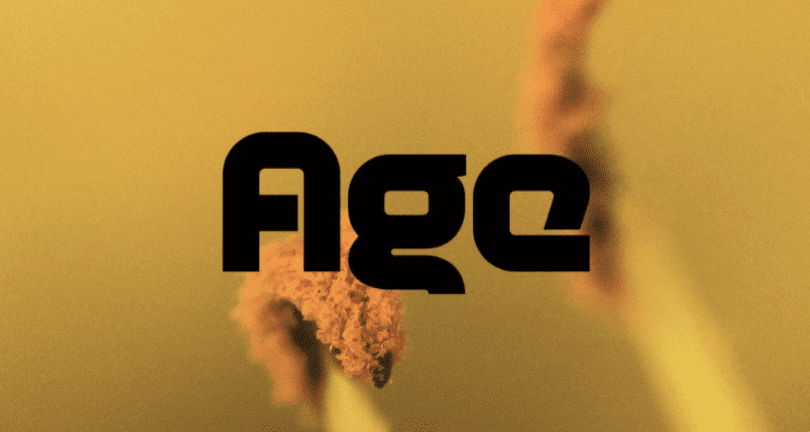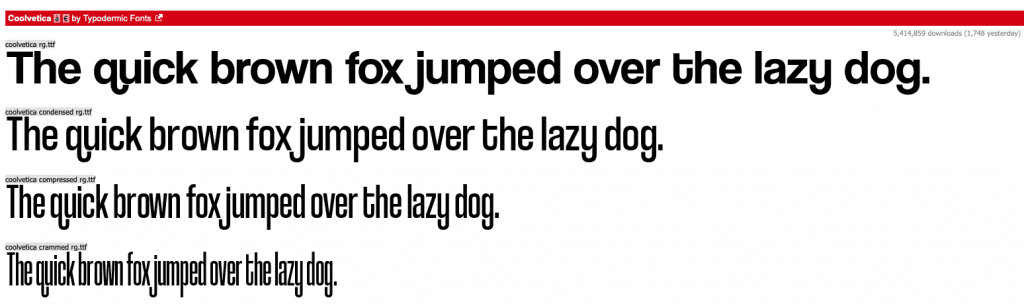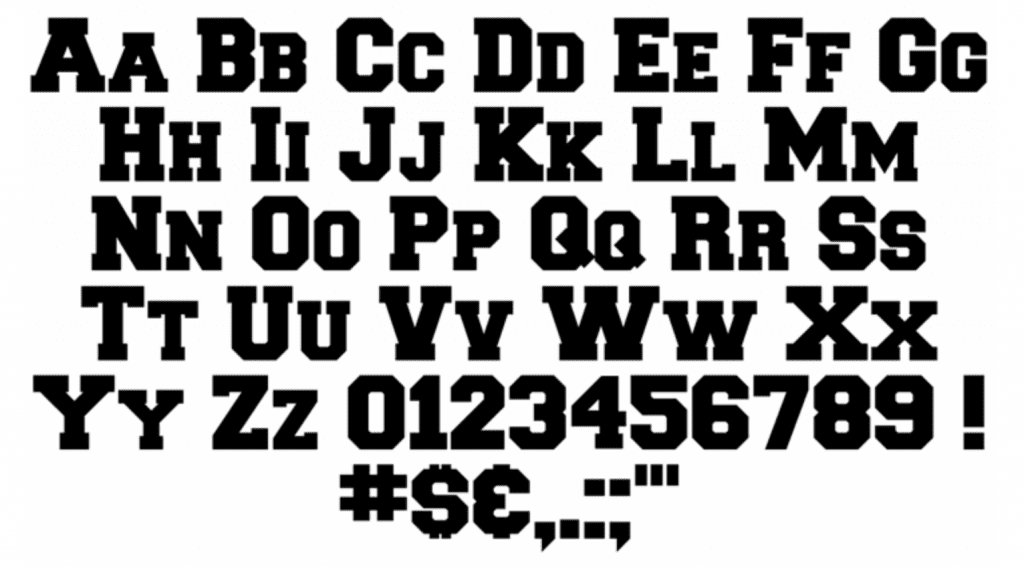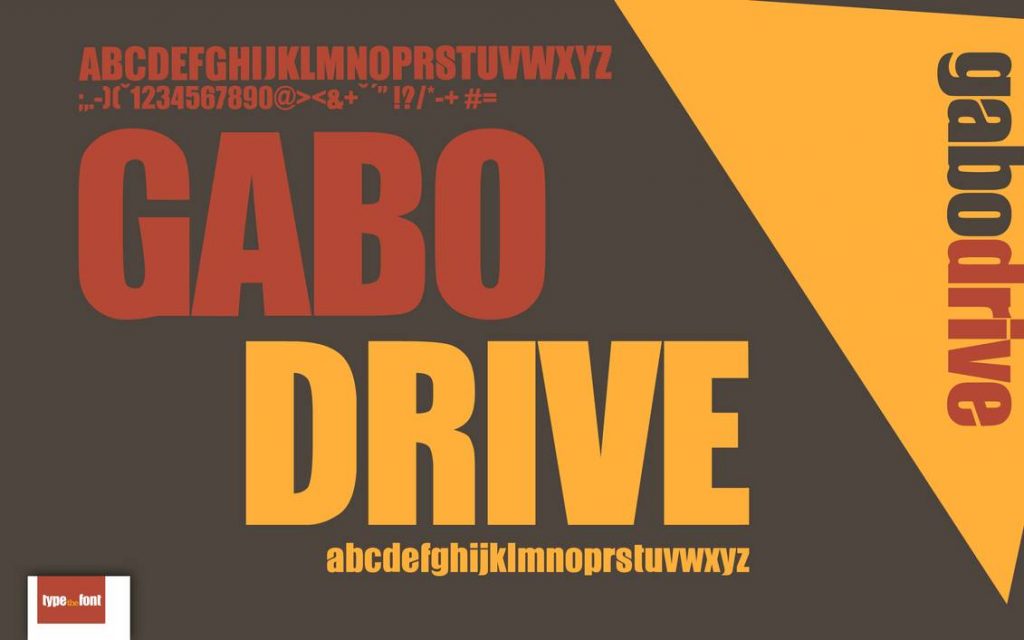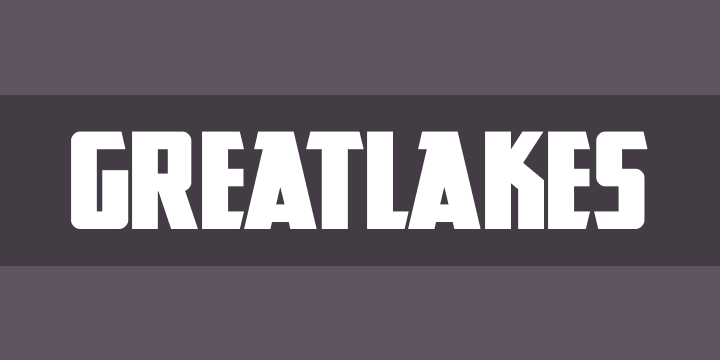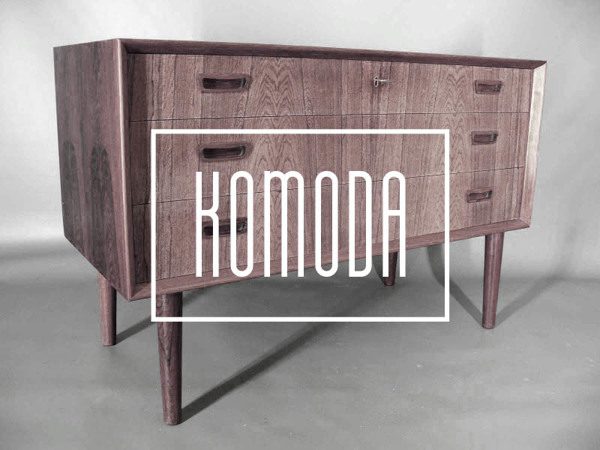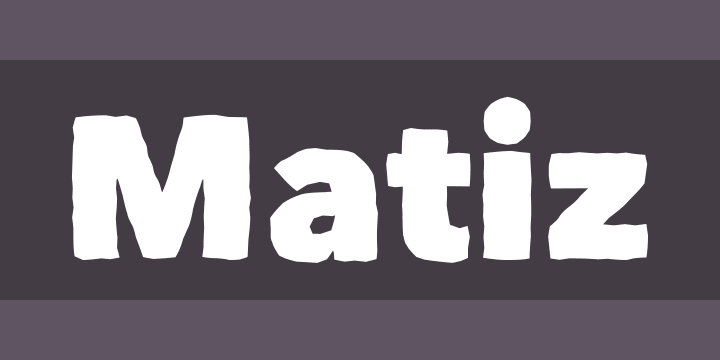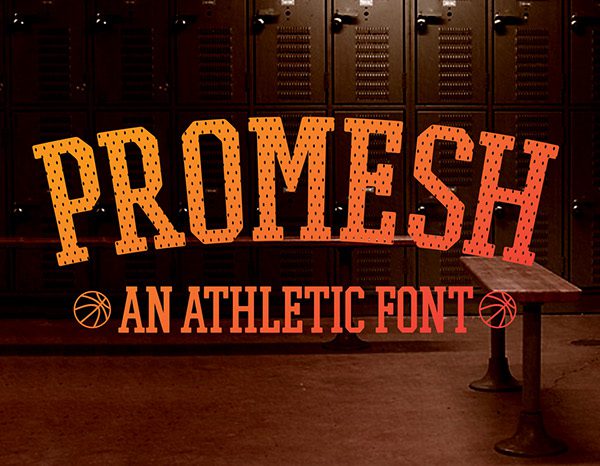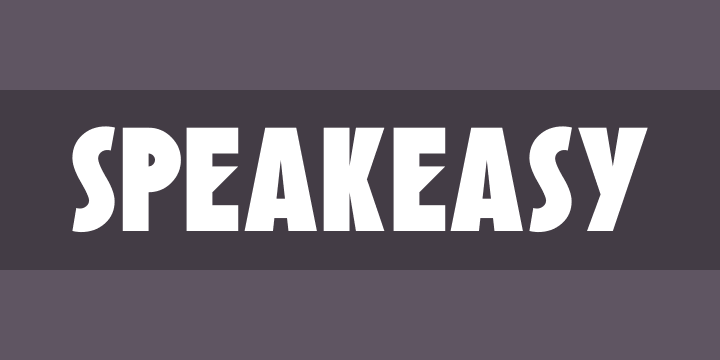
20+ Best Free Block Letter Fonts
Typography is a critical element of design, impacting both aesthetics and accessibility. When designing an ad, header or signage, you need a font that’s eye-catching and that will immediately create a hierarchy. Block fonts are fitting for key graphic areas where copy has to stand out. However, they shouldn’t be used in large bodies of text. Readers find it taxing to read too many words in such a prominent typeface.
Block fonts fall into a broad category of typography that’s suitable for signage, headlines and other short-copy, attention-seeking design areas. Traditionally, the strokes of a block font will have the same thickness, but in some of these more artistic fonts, thinner vs. thicker zones give them character. Block fonts also have rigid corners, lots of straight lines and are often all caps.
1. Advent Pro
This modern, sans serif font has a thin design and comes in assorted styles. It looks particularly striking on a single-color or monochromic background.
2. Age
Both rounded and structured, Age’s coolest features are the cut-off tails of letters (like the lower case “g” and “y”). This super-thick, space-like font is best for very eye-catching graphic designs, including logos.
3. Blackout
Blackout should only be used if you want a headline so loud you can almost hear it. The designer of this in-your-face font was inspired by coloring in the holes of letters in newspaper headlines.
4. Chunk
The ultra-bold Chunk is attention-grabbing and has a classic appearance. Described as American Western meets newspaper headline, it’s best to pair with slimmer fonts.
5. Coolvetica
This playful modification of Helvetica has tight spacing and funky curls. The font is a nod to the 1970s, specifically to the signage in that era’s U.S. chain stores.
6. Freshman
Freshman is a straightforward, college-style font with wide, bold letters. The lowercase letters are still technically uppercase, they’re just smaller in size. If you want a slimmer version of Freshman, check out Graduate or High School USA.
7. Gabo
You think you’ve seen Gabo on movie posters before, and maybe you have, but if you look closely, there are subtle tilts in some of the letters. In lower case, the letters have smooth curves and slight slits.
8. GreatLakes
Angular and with lots of height and strength, GreatLakes looks like it’s walking forward thanks to the sharp tilts and cuts in some of the letters. It’s named perfectly, too, and you can picture it on the sign for an outdoors store.
9. Higher
Higher is elongated and tall, and the identifying parts of the letters are situated exaggeratedly high or low. For readability purposes, make sure to test your exact copy in this font before settling on it.
10. Knewave
Carefree, fun and bold, Knewave is a rounded font for a youthful business or website. This painterly font has a brush-like texture that’s most noticeable along the ends of the letters.
11. Komoda
This narrow font has a lot of height, and it pairs well with a short, bold sub-header. Use Komoda for a contemporary or casual business, like a minimalist furniture store or a bar promoting happy hour.
12. Matiz
The shaky, hand-drawn quality of Matiz makes it look like its shivering. Use it on branding or signage when you want to convey motion or emotion.
13. Megalopolis Extra
Megalopolis Extra’s letters have unexpected curvatures that soften an otherwise rigid font. Brands can remain mostly traditional with just a sprinkling of personality.
14. Orbitron
Orbitron comes in four weights and looks like it’s meant for a sci-fi movie poster. Futuristic and geometric, it’s easy to read while still being interesting instead of generic.
15. Ostrich Sans
Ostrich Sans has a long neck and comes in several styles and weights, including dashed and rounded options. The variations work so well together that you may not have to search for a sub-header font to pair with it.
16. Promesh
Undoubtedly athletic, Promesh has a distressed, mesh appearance reminiscent of sports jerseys. If you like the style but don’t want the mesh texture, download Promesh Two.